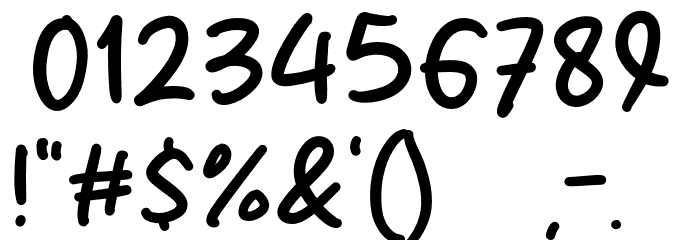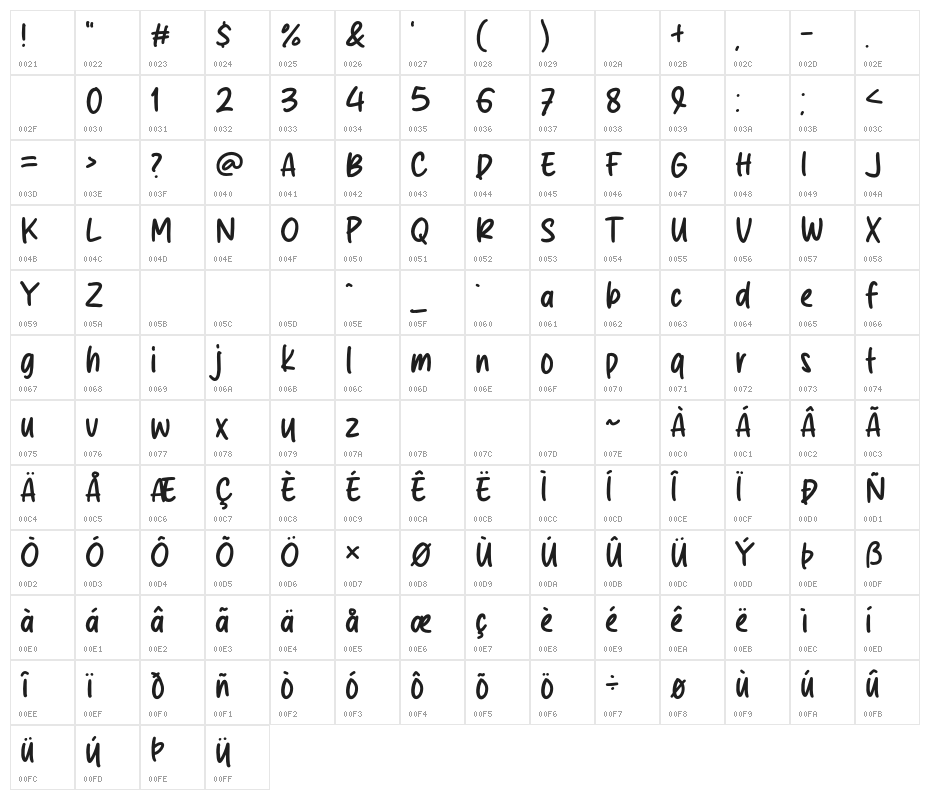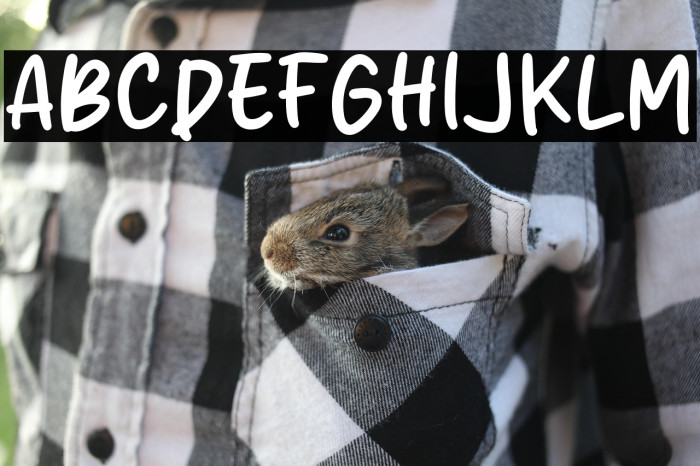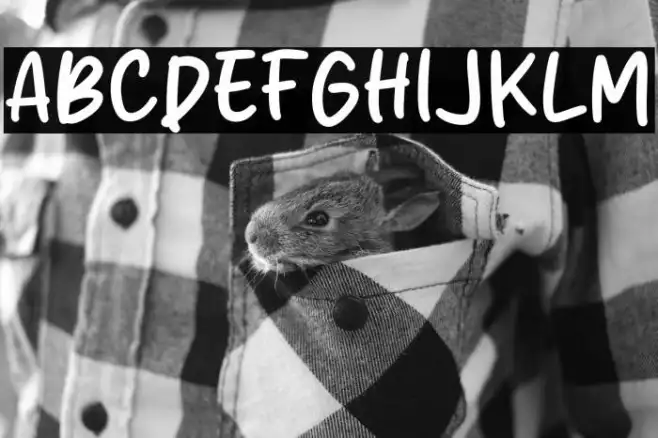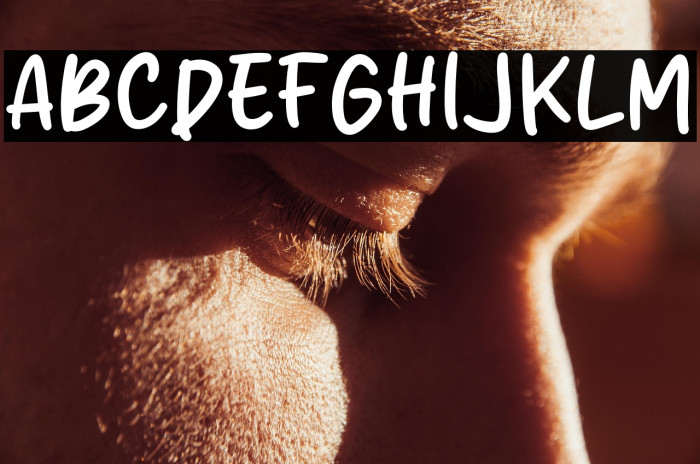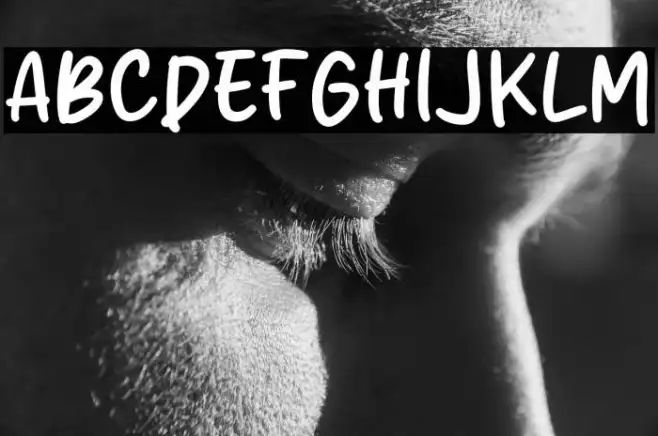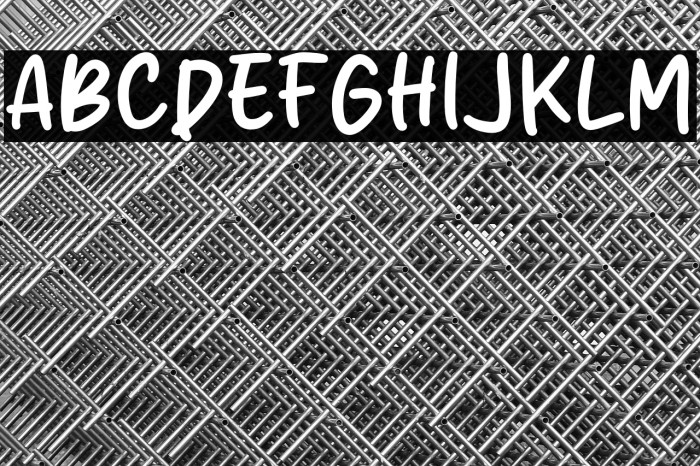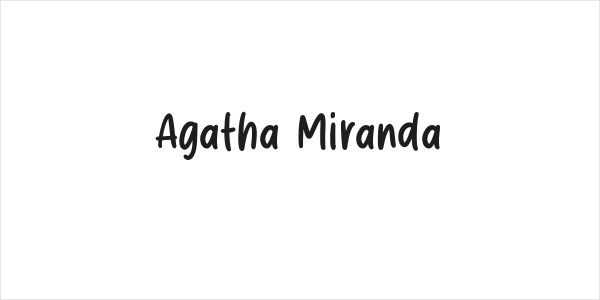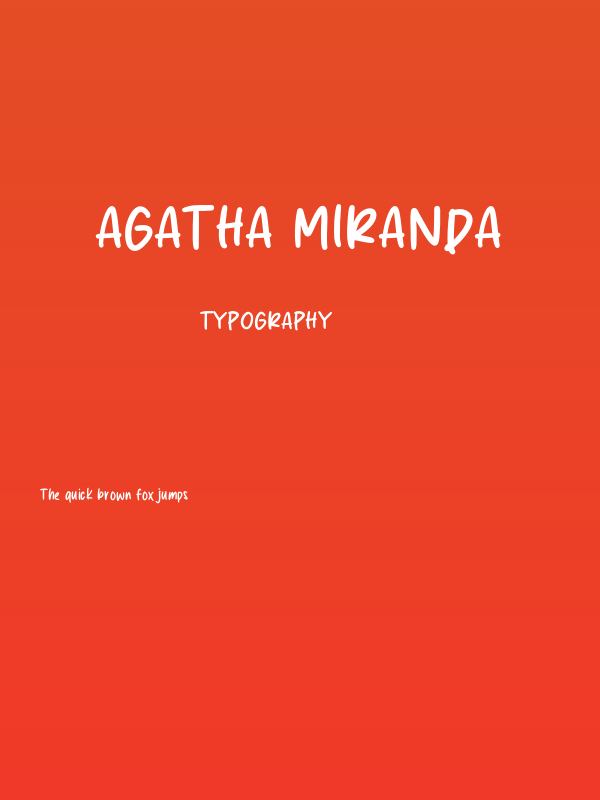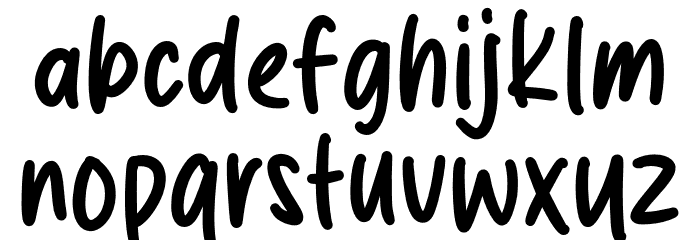
Agatha Miranda Font
Agatha Miranda Description
This font exudes a playful and casual handwritten style, characterized by its smooth, rounded strokes and slightly irregular letterforms. The uppercase and lowercase letters maintain a consistent flow, creating a sense of movement and energy. The numerals and special characters complement the alphabet with similar fluidity and charm. Its informal appearance makes it ideal for projects that require a personal touch or a friendly, approachable vibe. The font's legibility is enhanced by its clear distinction between characters, despite the casual style.
| Use Case | Logos, Headlines, Informal text |
| Proposed Projects | Ideal for greeting cards, children's books, casual branding, and social media graphics. |